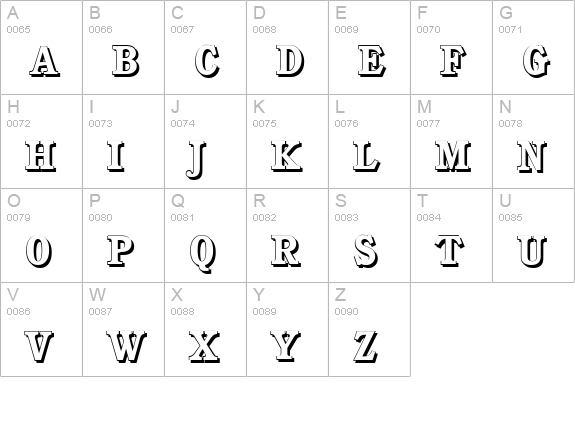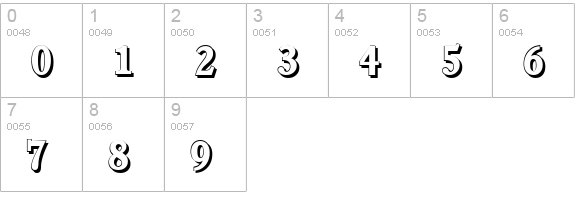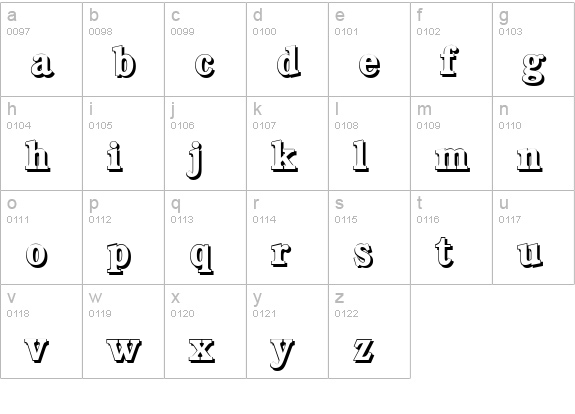
CalgaryShadow-Bold is a strong, high-contrast variant in the CalgaryShadow typeface family \xE2\x80\x94 well suited to headlines, attention-grabbing titles, and strong calls-to-action.
CalgaryShadow-Bold font is a bold and eye-catching typeface that exudes a sense of strength and confidence. Its striking shadows add depth and drama to any design, making it perfect for headlines, titles, and other prominent text elements. With its clean lines and modern aesthetic, CalgaryShadow-Bold is sure to make a statement and capture the attention of your audience. The best part? CalgaryShadow-Bold font is available for free download at FontsMarket.com. This means you can easily access this unique and versatile font to elevate your projects without breaking the bank. Don't miss out on the opportunity to add CalgaryShadow-Bold to your font library and bring a touch of bold elegance to your designs today.